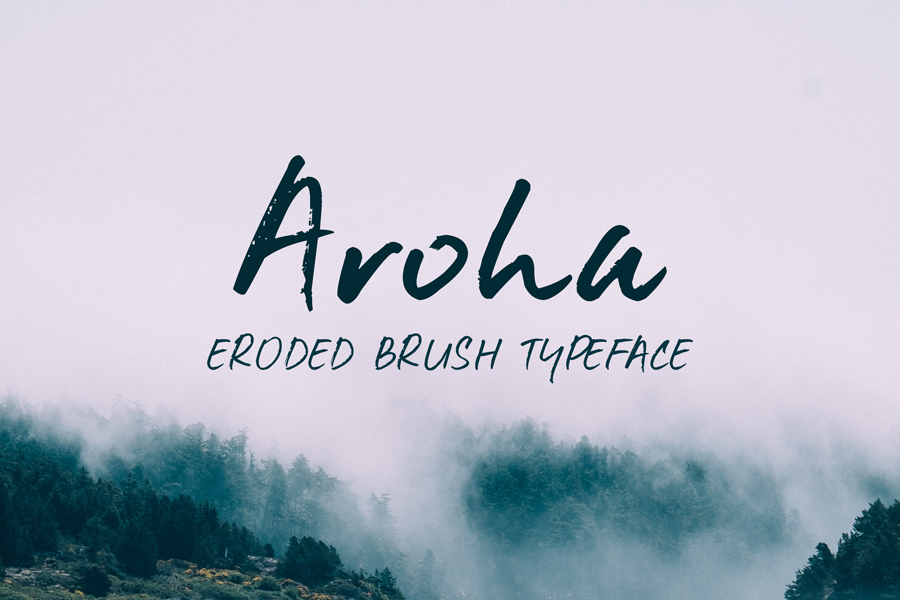
Aroha Brush Font
Aroha is a natural eroded brush typeface which is perfect for display and heading. This perfectly imperfect brush-lettering free font is great to give personal touches to your design.